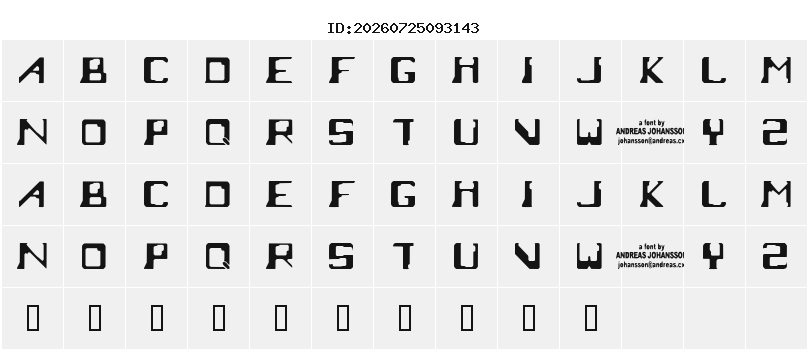
• Font Name: Giga66
• Full Font Name: Giga66
Giga66.ttf is a modern, elegant sans-serif font designed for ultimate readability and visual harmony. Perfect for branding, headlines, web design, and print materials.